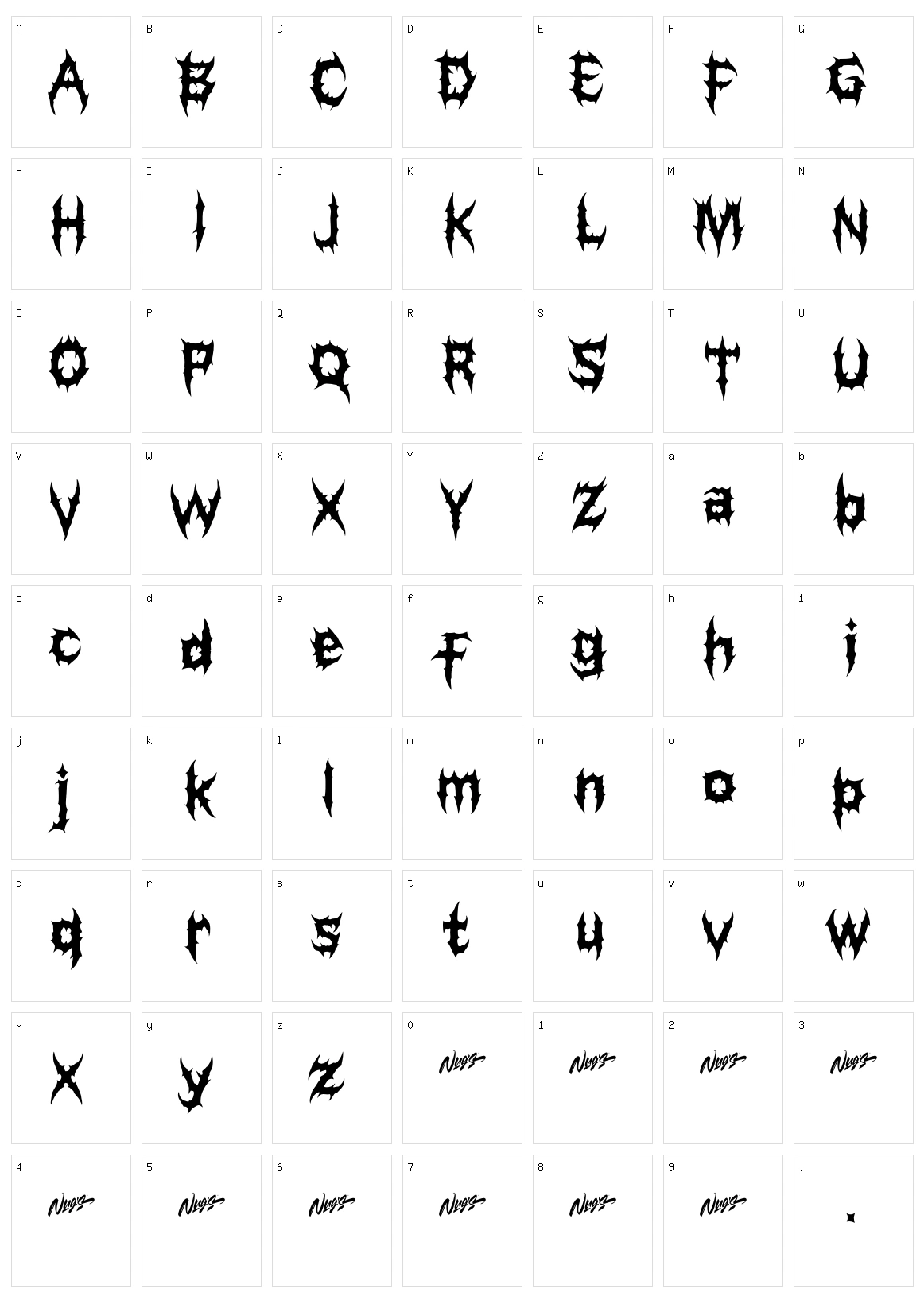
Slaughter Of The Death
Designed by: Nugs Studio
Description: The free font Slaughter Of The Death is carefully designed by Nugs Studio, showcasing a thoughtful balance of creativity and usability and belongs to the Gothic font family. When you download the ZIP file, it contains only 445.08 KB of font files, making it lightweight and quick to download. Please review the license details below to understand permitted usage and distribution rights. If license information is not available, we recommend using this font for personal projects only or contacting the author directly for commercial usage permissions.